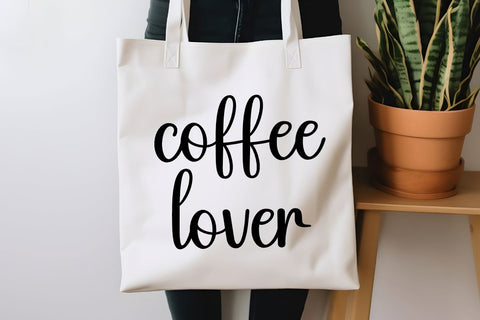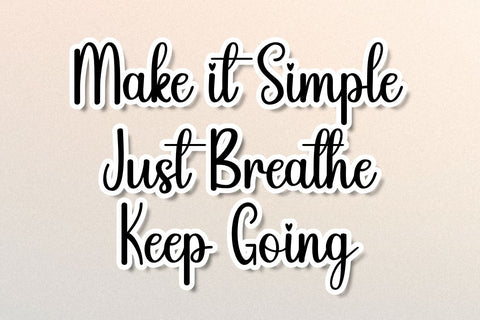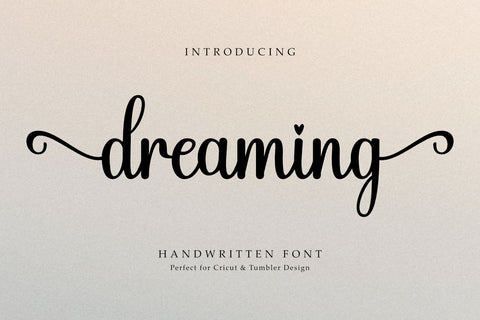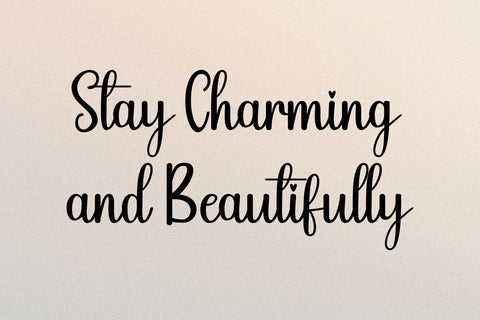
Dreaming - Beautiful Handwriting Font
Dreaming is a sweet and lovely handwritten font. It looks great on a variety of design ideas and adds a sweet and friendly touch. Perfect for tumblers, mugs, stickers, teacher designs, Cricut projects, quotes, and DIY crafts. This font is easy to use and suitable for both personal and commercial projects.